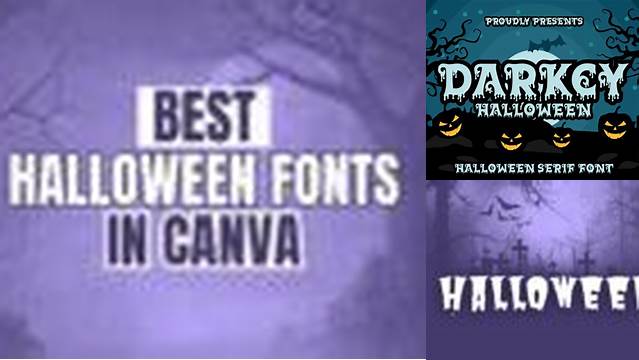
Spooky Fonts: Halloween Font Generator Guide
Hey guys! Ready to add some spooky flair to your Halloween projects? You've come to the right place. We're diving deep into the world of Halloween free font generators and how you can use them to create eye-catching designs that scream (or whisper) Halloween. From eerie invitations to chilling social media posts, the right font can make all the difference.
1. Understanding Halloween Font Styles
When it comes to Halloween free font generators, understanding the different font styles is crucial. Are you going for a classic horror vibe, a whimsical cartoonish feel, or something modern and spooky? Classic horror fonts often include dripping serifs, jagged edges, and an overall unsettling appearance. Think of fonts that resemble bloodstains or cracked tombstones. Whimsical fonts, on the other hand, might feature rounded shapes, playful curves, and a more lighthearted tone, perfect for family-friendly Halloween events. Modern spooky fonts blend contemporary design with subtle Halloween elements, like sharp angles or ghostly effects. Knowing your target audience and the overall theme of your project will help you choose the best style. Consider the readability too – a super spooky font might look cool, but if no one can read it, it’s not very effective! Always test your fonts on different backgrounds and sizes to ensure they remain legible. Also, explore various font weights and styles within a family to create visual hierarchy and emphasis. Don't be afraid to mix and match different font styles, but do so sparingly to avoid a cluttered look. Think about pairing a decorative Halloween font for headlines with a clean, simple font for body text. Ultimately, the goal is to select a font that enhances your message and captures the spooky spirit of Halloween without sacrificing clarity.
2. Top Halloween Font Generators Online
Alright, let's talk about some of the best Halloween free font generators you can find online. There are tons of options out there, each with its own unique selection of fonts and customization features. One popular choice is FontStruct, which allows you to create your own fonts from scratch using geometric shapes. It's a bit more advanced, but the possibilities are endless if you want a truly unique Halloween font. Another great option is Canva, which offers a wide range of pre-made Halloween fonts and templates that you can easily customize. Canva is perfect for beginners because it’s super user-friendly and has a drag-and-drop interface. DaFont is another excellent resource, with a massive library of free fonts, many of which are specifically designed for Halloween. You can find everything from creepy handwritten fonts to bold, spooky display fonts. FontSpace is similar to DaFont, offering a vast collection of free fonts with easy-to-use search filters. Be sure to check the licensing agreements for each font to make sure you can use it for your intended purpose, especially if you’re planning to use it commercially. Creative Market also offers a variety of Halloween fonts, both free and premium, with high-quality designs and detailed character sets. Experiment with different generators to find the one that best suits your needs and design style. Don't hesitate to try out multiple fonts and see how they look in your projects before making a final decision. The key is to have fun and explore the spooky possibilities!
3. How to Use a Halloween Font Generator
So, how do you actually use a Halloween free font generator? Most generators are pretty straightforward. First, you’ll want to head to the website of your chosen font generator (we talked about a few good ones earlier). Once you're there, you'll typically find a text box where you can type in the text you want to generate. This could be anything from “Happy Halloween” to the name of your spooky event. Next, you’ll browse through the available Halloween font options. Most generators offer a preview of your text in each font, so you can see how it looks before you commit. Once you find a font you like, you might have options to customize it further. This could include adjusting the size, color, adding effects like shadows or outlines, and even tweaking the spacing between letters. Some generators also allow you to download the font file directly to your computer, so you can use it in other design software like Photoshop or Illustrator. If you’re using a generator that’s part of a larger design platform like Canva, you can usually just add the font directly to your project with a few clicks. Remember to check the licensing terms of the font before you use it, especially if you’re planning to use it for commercial purposes. Some fonts are free for personal use but require a license for commercial use. Have fun experimenting with different fonts and customization options to create the perfect spooky look for your Halloween designs!
4. Creating Spooky Text Effects
To really make your Halloween designs stand out, let's talk about creating spooky text effects using a Halloween free font generator. Simply choosing a spooky font is a great start, but adding effects can take your design to the next level. One popular effect is the “dripping blood” look, which you can achieve by adding red, jagged lines to the bottom of your letters. Another classic effect is creating a ghostly glow around your text. You can do this by adding a white or light-colored outline to your font and then blurring it slightly. Shadow effects can also add depth and spookiness to your text. Experiment with different shadow angles and colors to create a creepy, three-dimensional look. Texture overlays are another great way to enhance your Halloween fonts. Try adding textures like cracked concrete, old paper, or cobwebs to give your text a more weathered and eerie appearance. Many design software programs like Photoshop and GIMP offer tools specifically for creating these kinds of effects. You can also find online tutorials that walk you through the process step-by-step. Remember to use these effects sparingly to avoid overwhelming your design. The goal is to enhance the spookiness of your text, not to make it illegible. Experiment with different combinations of effects to find the perfect balance. With a little creativity, you can transform a simple Halloween font into a truly terrifying masterpiece!
5. Using Halloween Fonts in Invitations
Planning a Halloween party? Then you definitely need to know how to use Halloween free font generators to create killer invitations. The font you choose for your invitation sets the tone for the entire event, so it’s important to pick one that reflects the theme and atmosphere you’re going for. For a spooky haunted house party, you might choose a font with jagged edges, dripping effects, or a classic horror movie vibe. For a more family-friendly costume party, you could opt for a whimsical font with rounded shapes and playful details. When designing your invitations, consider the overall layout and design. Use the Halloween font for the main headings and titles, but choose a simpler, more readable font for the body text with the party details. This will ensure that your guests can easily read all the important information. Pay attention to the color scheme of your invitation as well. Black and orange are classic Halloween colors, but you can also incorporate other spooky hues like purple, green, and red. Experiment with different color combinations to find the perfect balance. Don’t forget to add some spooky graphics and illustrations to your invitation to complete the look. Images of pumpkins, ghosts, bats, and spiders can all add to the Halloween atmosphere. You can find free Halloween graphics online or create your own using design software. Finally, proofread your invitation carefully before sending it out to make sure there are no typos or errors. A well-designed and error-free invitation will impress your guests and set the stage for a spooktacular Halloween party!
6. Halloween Fonts for Social Media
Want to make your social media posts extra spooky this Halloween? Halloween free font generators are your secret weapon! Choosing the right font can instantly transform your posts from bland to boo-tiful. When selecting fonts for social media, keep in mind that readability is key. While you want something spooky and eye-catching, make sure your followers can still easily read your message. Bold, clear fonts with a touch of Halloween flair work best. Use your chosen Halloween font for headings, captions, and any text you want to emphasize. Pair it with a simpler font for the main body of your post to ensure readability. Don't be afraid to experiment with different colors and effects to make your text stand out. Use classic Halloween colors like orange, black, and purple, or add spooky effects like shadows, outlines, and glows. Animated text can also be a great way to grab attention on social media. Use GIFs or short videos with animated Halloween fonts to make your posts even more engaging. Remember to optimize your images and videos for social media platforms. Use the correct dimensions and file sizes to ensure that your posts look their best. Use relevant Halloween hashtags to reach a wider audience. Hashtags like #Halloween, #SpookySeason, and #HalloweenFonts can help people find your posts. Engage with your followers by asking them questions and encouraging them to share their own Halloween creations. A little bit of spooky creativity can go a long way in making your social media posts stand out this Halloween!
7. Commercial Use of Halloween Fonts
If you're planning to use Halloween free font generators for commercial purposes, there are a few things you need to keep in mind. Not all free fonts are created equal, and some come with restrictions on how you can use them. Before using a font for commercial projects like logos, merchandise, or advertising, make sure to check the licensing agreement. The license will tell you whether you're allowed to use the font for commercial purposes and whether there are any limitations. Some fonts are free for personal use but require a license for commercial use. Others may allow commercial use but with certain restrictions, such as not being able to embed the font in digital products. If you're unsure about the licensing terms, it's always best to contact the font designer or distributor directly to clarify. Using a font without the proper license can result in legal issues and financial penalties. If you need a font for commercial use and you're not sure about the licensing, consider purchasing a commercial font from a reputable font foundry. Commercial fonts typically come with clear licensing terms and offer more flexibility in how you can use them. Investing in commercial fonts can be a worthwhile investment if you're serious about using fonts in your business. Always keep a record of your font licenses in case you ever need to prove that you have the right to use a particular font. By taking these precautions, you can ensure that you're using Halloween fonts legally and ethically in your commercial projects.
8. Designing Halloween Logos with Free Fonts
Creating a memorable Halloween logo? A Halloween free font generator can be a great starting point. Your logo is the face of your brand, so it needs to be eye-catching, memorable, and relevant to your target audience. When designing a Halloween logo, start by brainstorming ideas that reflect the spirit of Halloween. Think about classic Halloween symbols like pumpkins, ghosts, bats, and spiders. Consider the overall tone and style you want to convey. Are you going for a spooky, scary look, or something more fun and playful? Choose a Halloween font that matches the tone of your logo. A font with jagged edges and dripping effects might be perfect for a haunted house logo, while a rounded, whimsical font could be better for a children's Halloween event. Keep your logo simple and easy to read. Avoid using too many fonts or complex designs. A clean, minimalist logo will be more memorable and versatile. Pay attention to the color scheme of your logo. Black and orange are classic Halloween colors, but you can also use other spooky hues like purple, green, and red. Experiment with different color combinations to find the perfect balance. Make sure your logo is scalable and looks good at different sizes. Test it on various backgrounds and in different formats to ensure that it remains legible and visually appealing. Get feedback from others on your logo design. Ask friends, family, or colleagues for their opinions and suggestions. Use their feedback to refine your logo and make it even better. Once you're happy with your logo, protect it by registering it as a trademark. This will prevent others from using a similar logo and protect your brand identity. With a little creativity and attention to detail, you can create a Halloween logo that will make a lasting impression.
9. Pairing Halloween Fonts Effectively
Even with a Halloween free font generator, pairing fonts effectively is essential for creating visually appealing designs. Using multiple fonts can add depth and interest to your projects, but it's important to choose fonts that complement each other and create a cohesive look. A good rule of thumb is to pair a decorative Halloween font with a simpler, more readable font. Use the Halloween font for headings and titles, and the simpler font for body text and other smaller elements. This will ensure that your designs are both eye-catching and easy to read. When choosing fonts to pair, consider their visual characteristics. Look for fonts that have similar weights, styles, and proportions. Avoid pairing fonts that are too similar, as this can create a monotonous look. Instead, look for fonts that have subtle differences that add visual interest. Pay attention to the spacing between letters and lines. Adjust the kerning and leading to create a balanced and readable text layout. Experiment with different font combinations to see what works best for your project. Try pairing a script font with a sans-serif font, or a bold font with a light font. Don't be afraid to break the rules and try something unexpected. However, always make sure that your font pairings are visually harmonious and support the overall message of your design. Use online tools and resources to help you find font pairings that work well together. There are many websites and apps that offer suggestions for font combinations based on different styles and themes. By mastering the art of font pairing, you can create Halloween designs that are both spooky and stylish.
10. Free vs. Premium Halloween Fonts
Navigating the world of Halloween free font generators often brings up the question: free vs. premium fonts? Both options have their pros and cons, and the best choice for you will depend on your specific needs and budget. Free Halloween fonts are a great option if you're on a tight budget or just starting out with design. There are many websites that offer a wide variety of free fonts, including fonts specifically designed for Halloween. However, it's important to be aware of the limitations of free fonts. Free fonts may not be as high-quality as premium fonts, and they may not include as many characters or variations. They may also come with restrictions on how you can use them, especially for commercial purposes. Premium Halloween fonts, on the other hand, offer several advantages. They are typically created by professional font designers and are of higher quality than free fonts. They often include a wider range of characters, styles, and weights, giving you more flexibility in your designs. Premium fonts also come with clear licensing terms, making it easier to use them for commercial projects. However, premium fonts can be expensive, especially if you need a large number of fonts. Before deciding whether to use free or premium fonts, consider your budget, the scope of your project, and your licensing needs. If you're working on a small, personal project, a free font may be sufficient. But if you're working on a large, commercial project, investing in premium fonts may be worth the cost. You can also try using a combination of free and premium fonts to get the best of both worlds. Use free fonts for smaller elements and premium fonts for headings and titles to create a visually appealing and professional-looking design.
11. Best Halloween Fonts for Cricut
12. Spooky Fonts for Halloween Crafts
13. Unique Halloween Fonts for 2024
14. Halloween Fonts for T-Shirts
15. How to Install Halloween Fonts
16. Halloween Font Color Combinations
17. Halloween Font Size Guide
18. Halloween Font Alternatives
19. Halloween Font Trends
20. Halloween Font Inspiration
21. Creepy Halloween Fonts
22. Cute Halloween Fonts
23. Vintage Halloween Fonts
24. Modern Halloween Fonts
25. Gothic Halloween Fonts
26. DIY Halloween Font Creation
27. Halloween Font Design Tips
28. Avoiding Common Halloween Font Mistakes
29. Halloween Font Resources
30. Future of Halloween Font Design